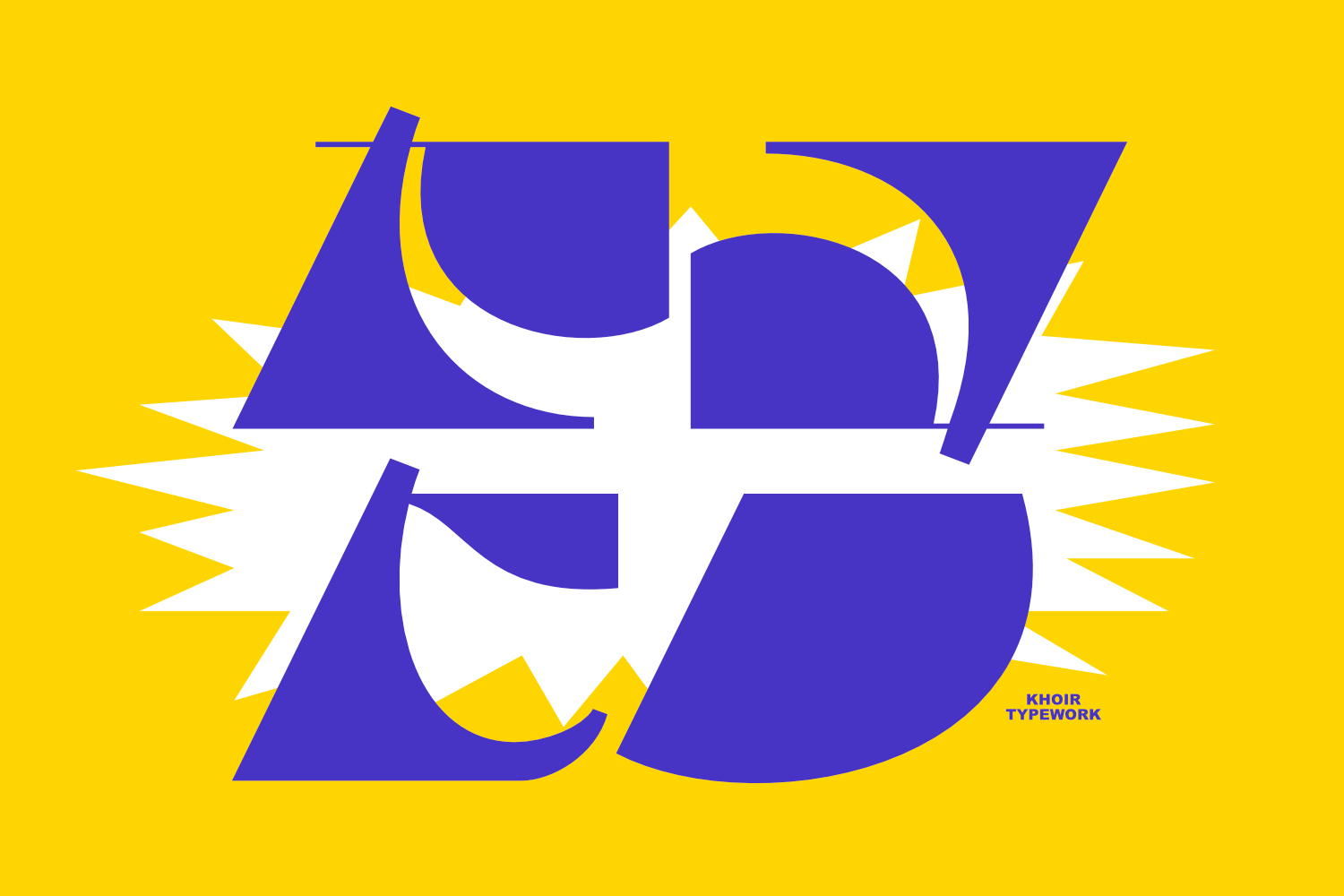
Paco - Display Font
PACO
Unique and attractive style makes this font feel fresh and characterful, has an abstract shape but is still connected to each other. seen in the appearance of this font is suitable for branding needs such as logos, posters, magazines, stickers, packaging, social media and many more.